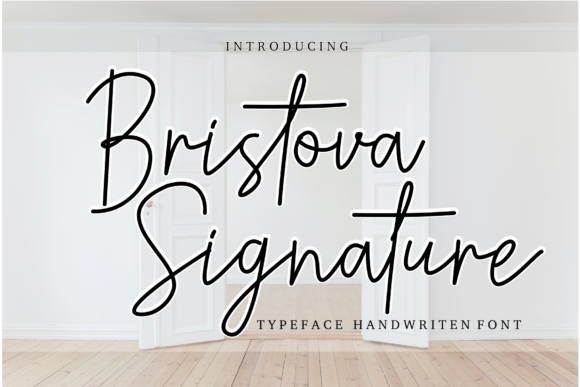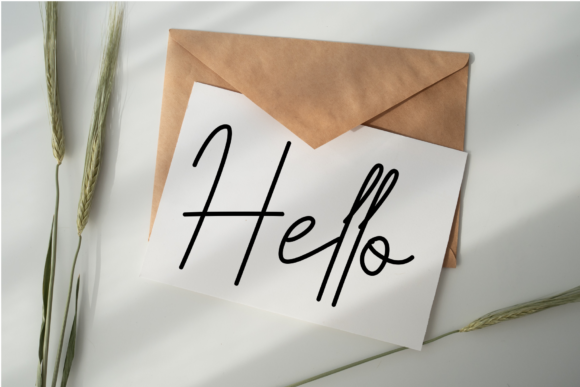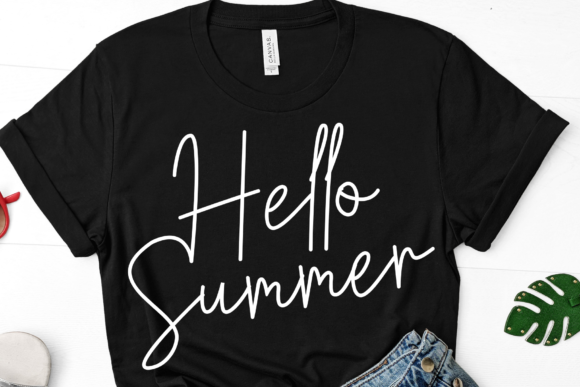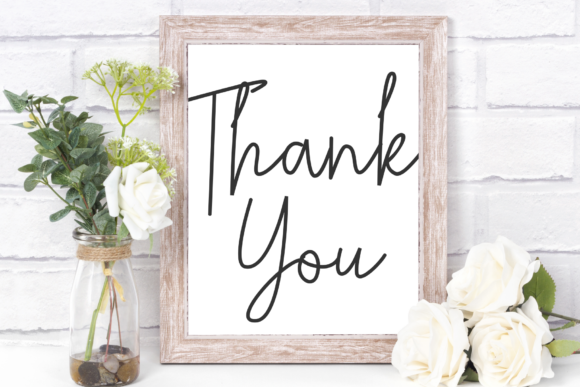
Bristova Signature Font
About Bristova Signature Font
Bristova Signature is a thin lettered and delicate script font. Add a touch of elegance to each of your favorite creations with this ravishing choice. It can be used for various purposes such as logos, wedding invitations, headings, t-shirts, letterhead, signage, labels, news, posters, badges and so much more.